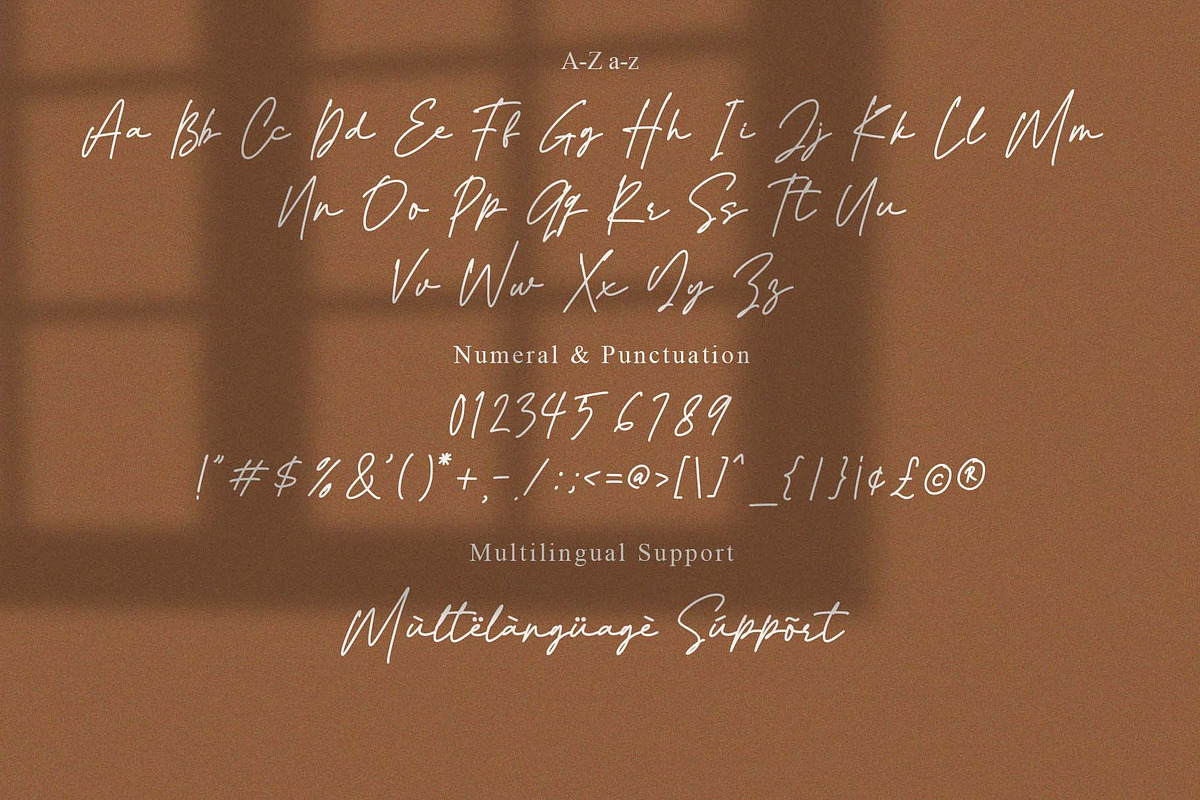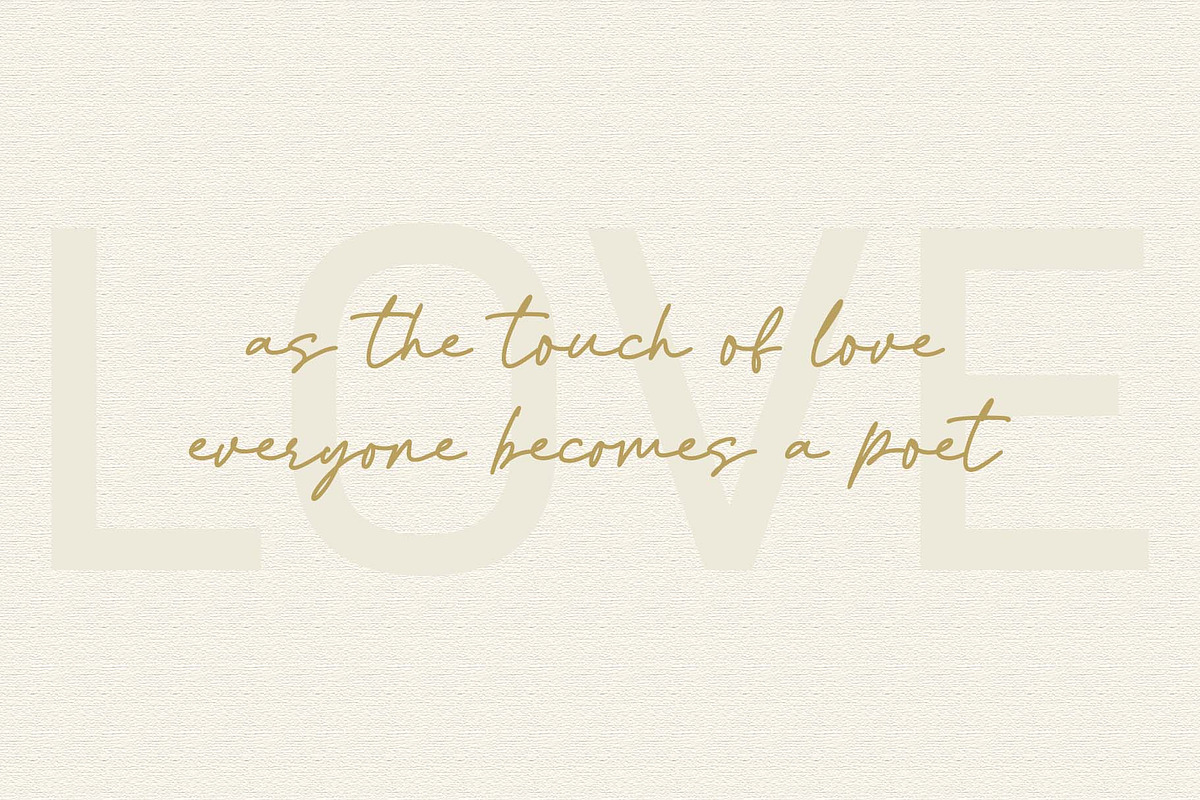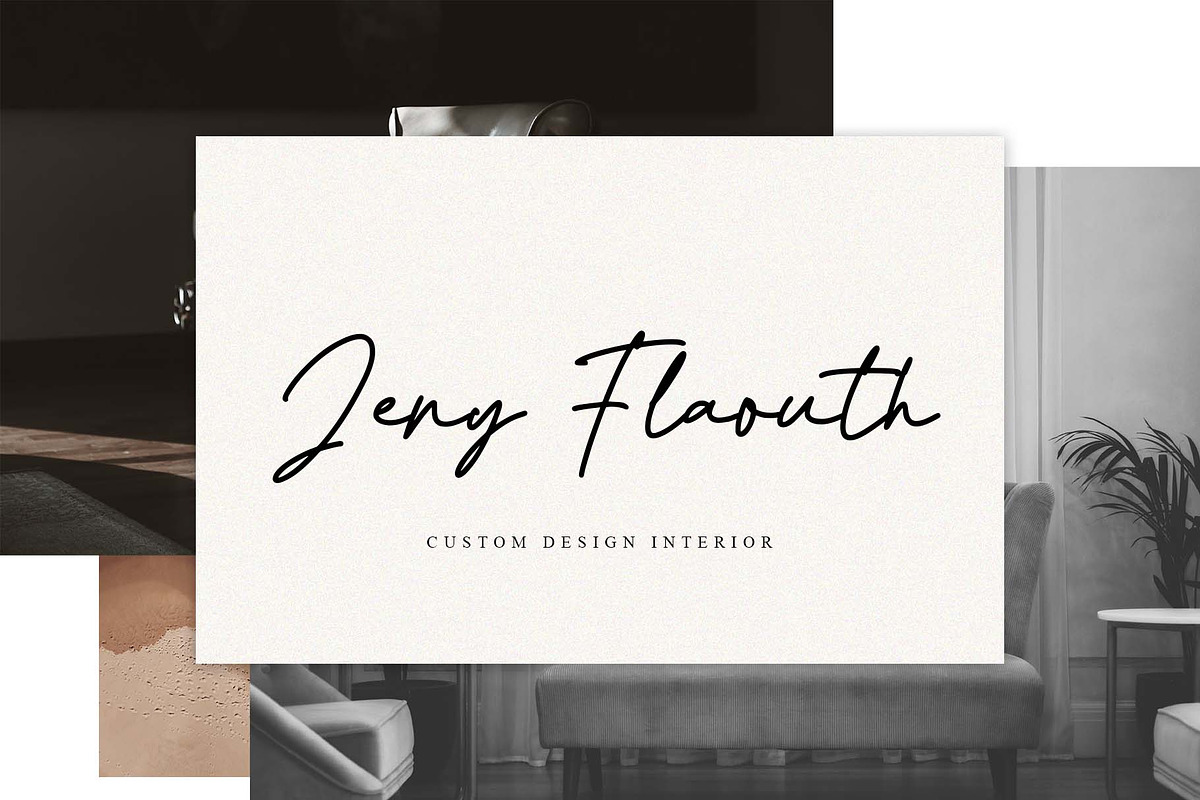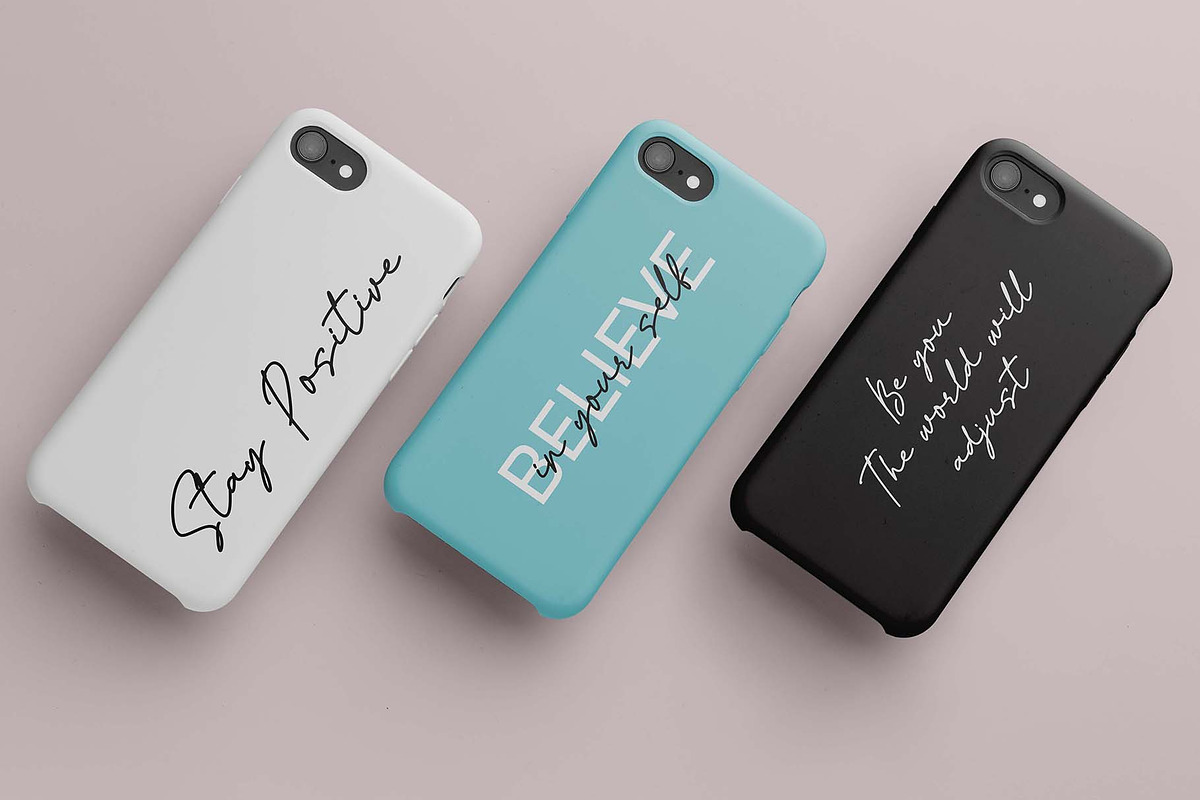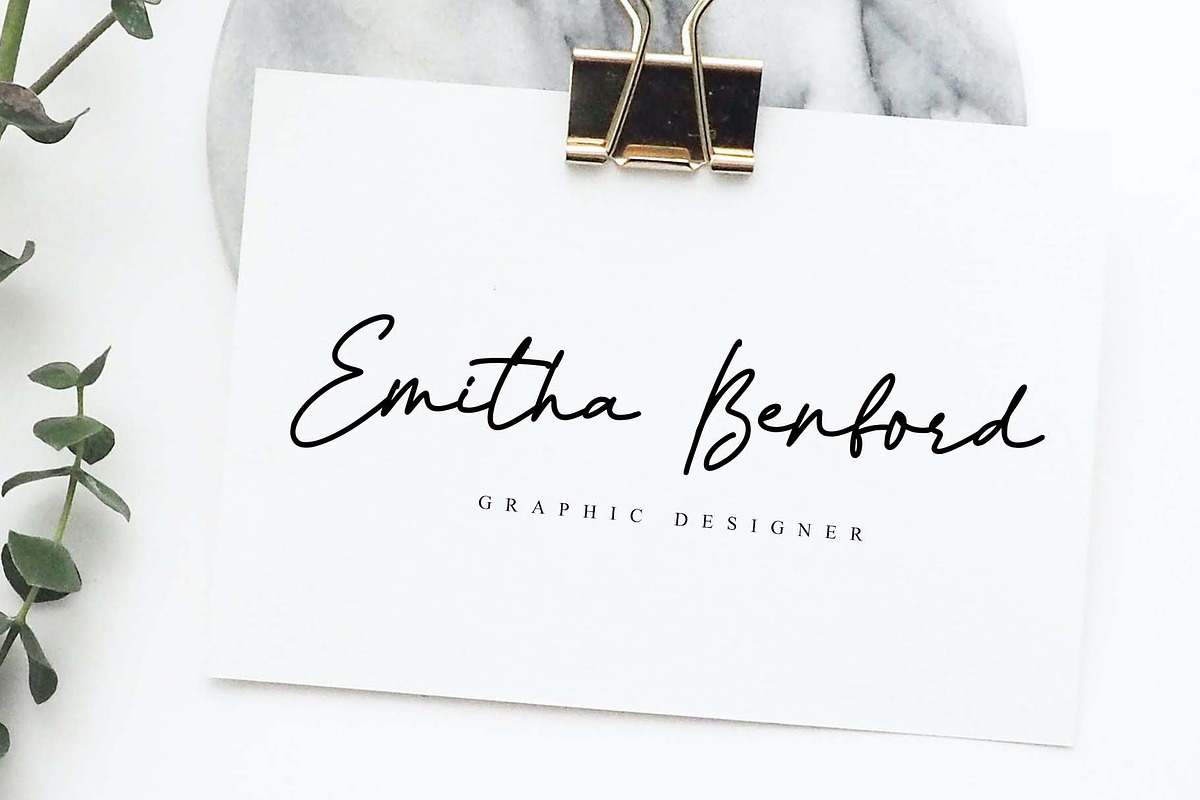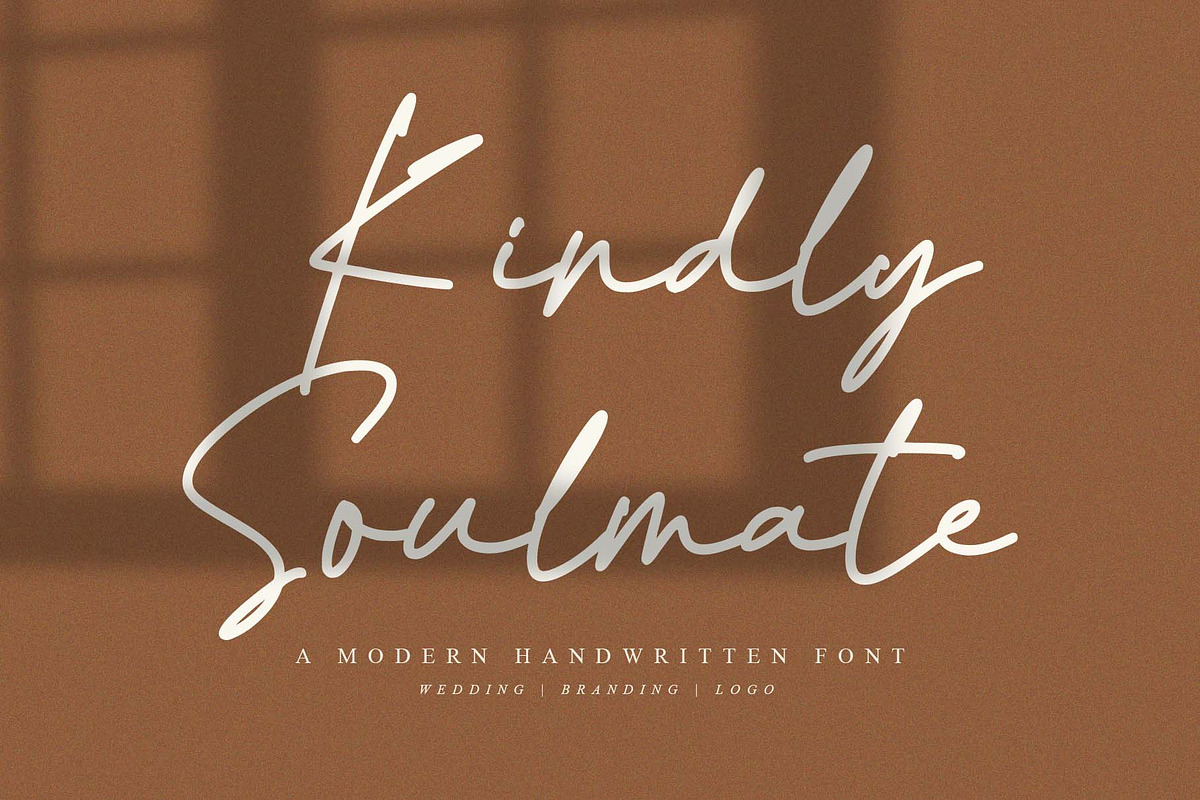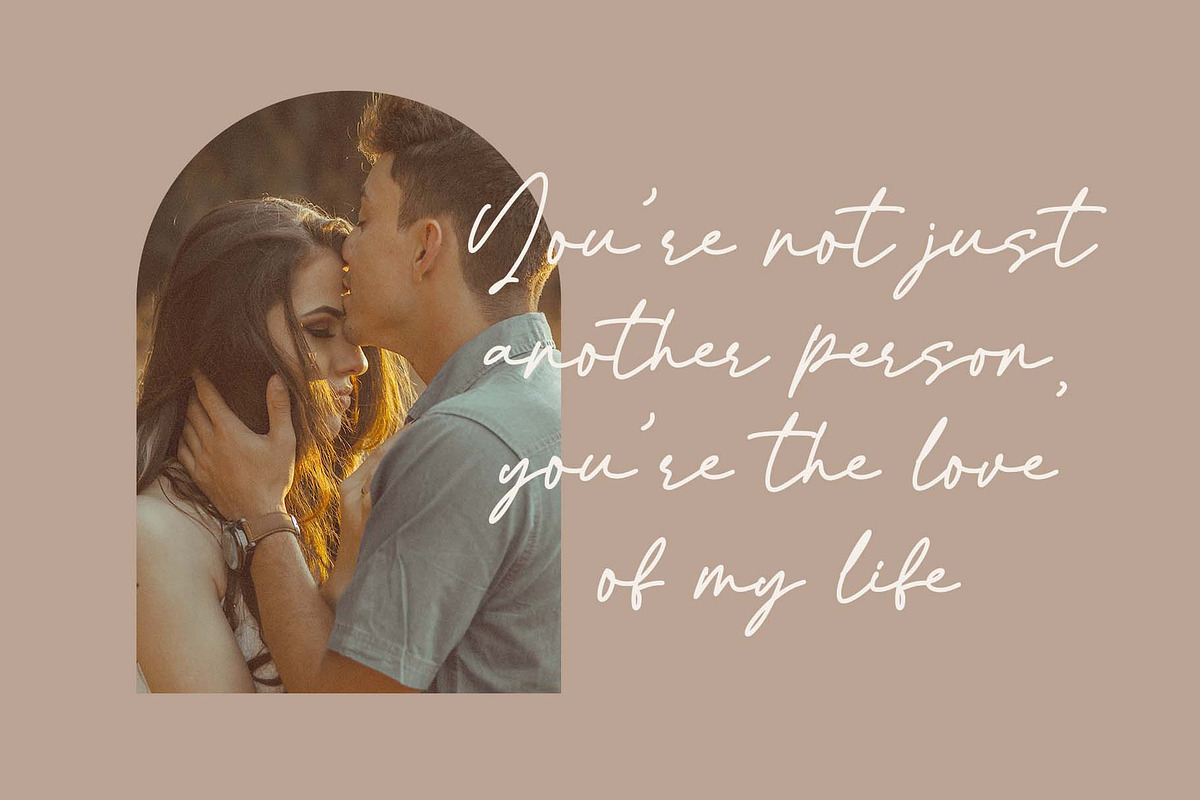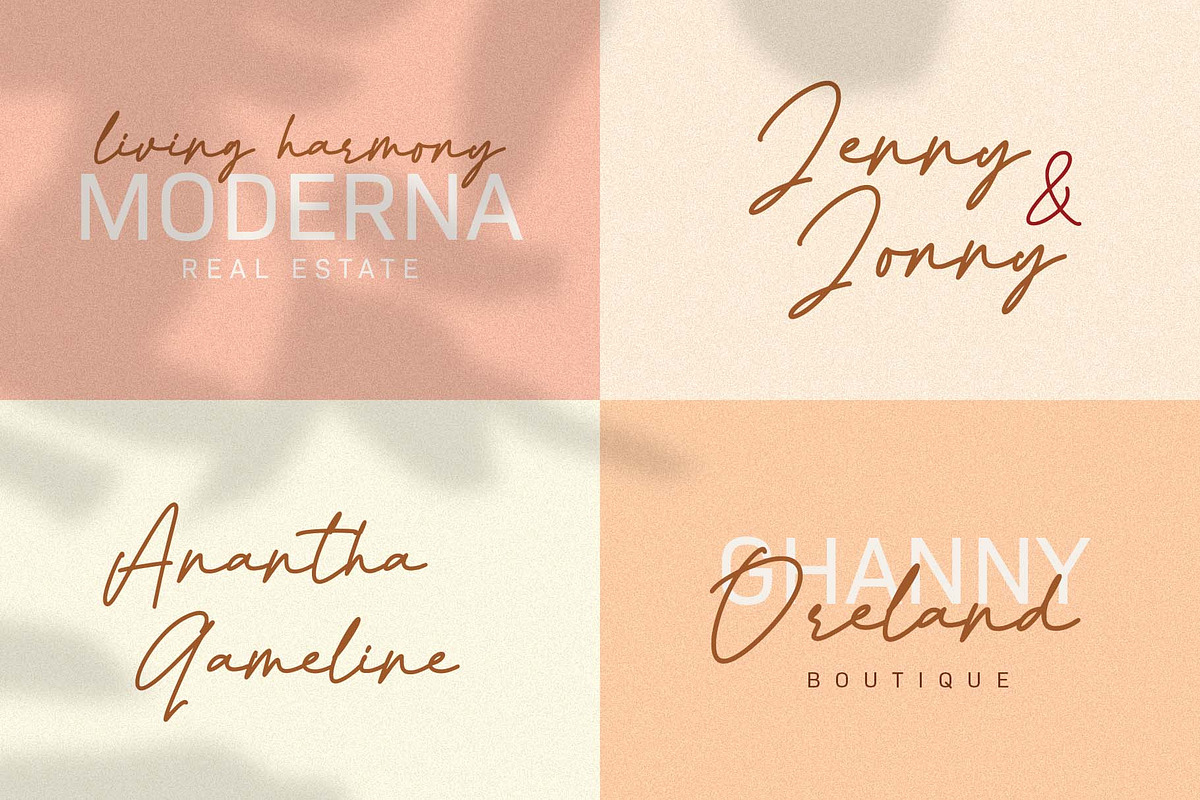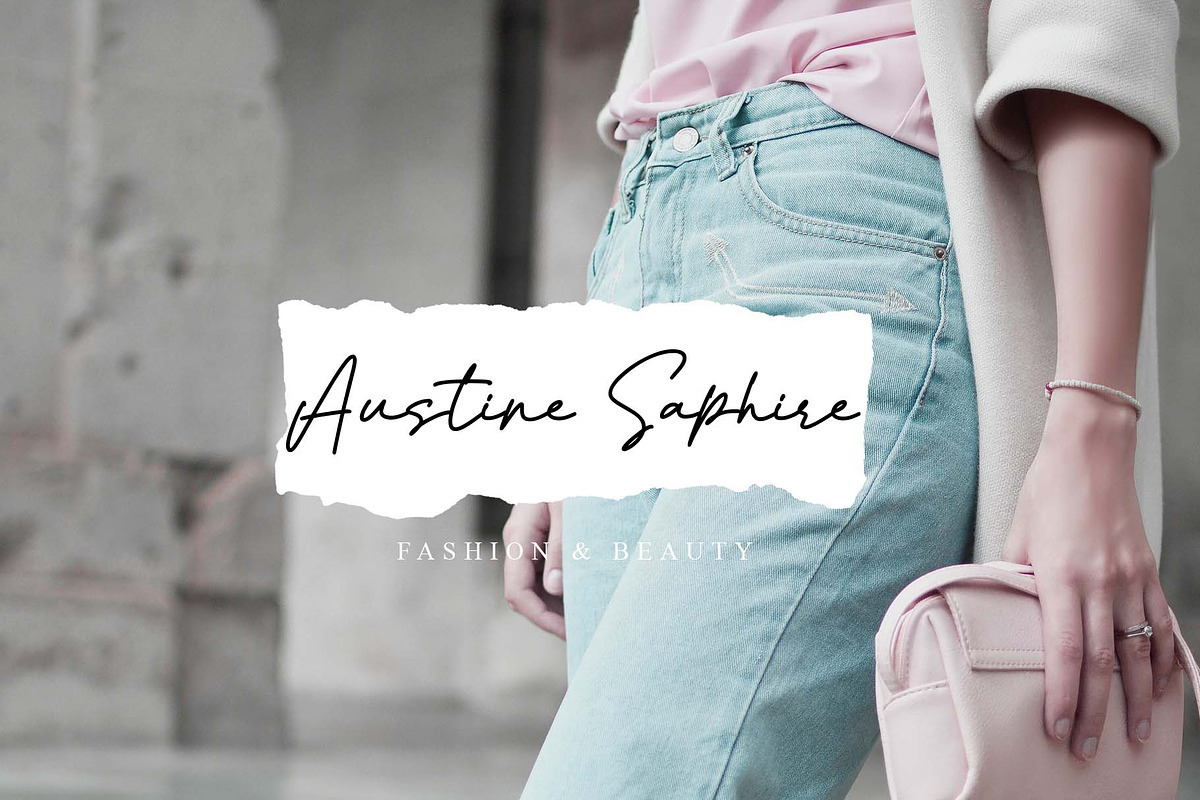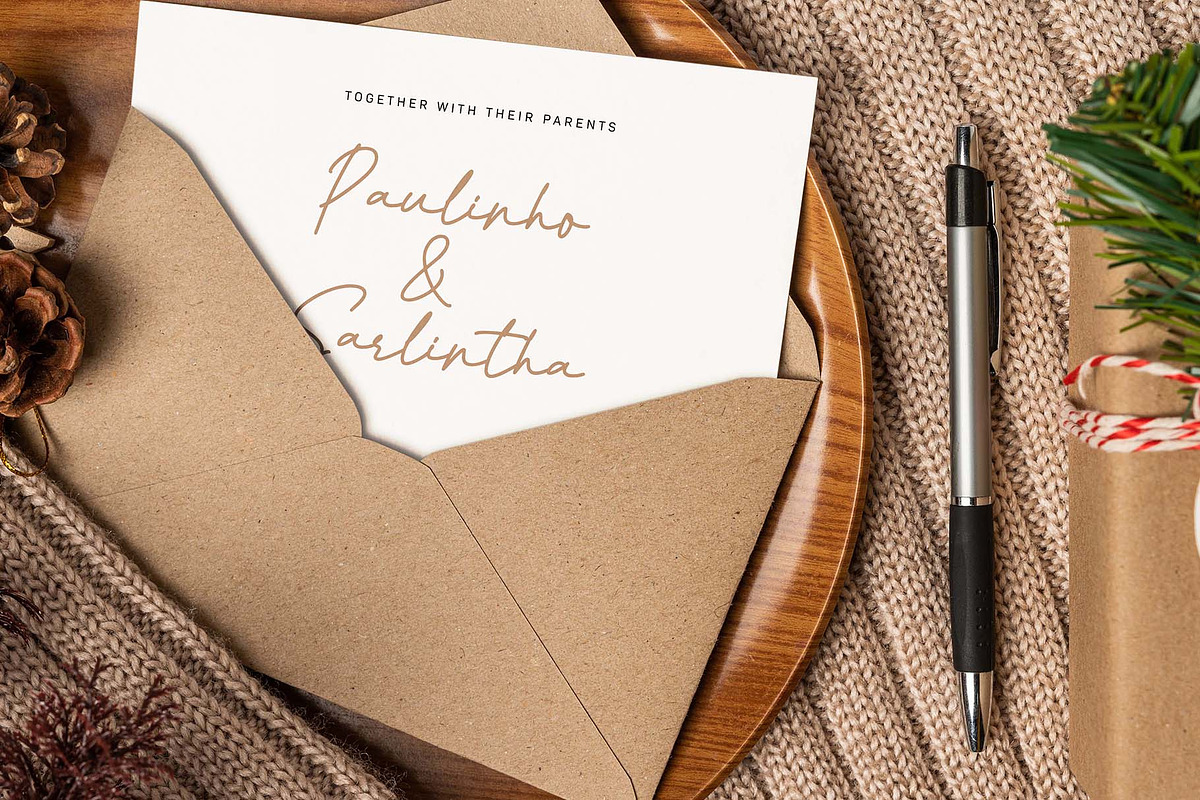
Kindly Soulmate Script
Kindly Soulmate is a modern and classy handwritten script with an original handdrwan touch, this font has a unique shape of each character that will add great impression to the design we made.